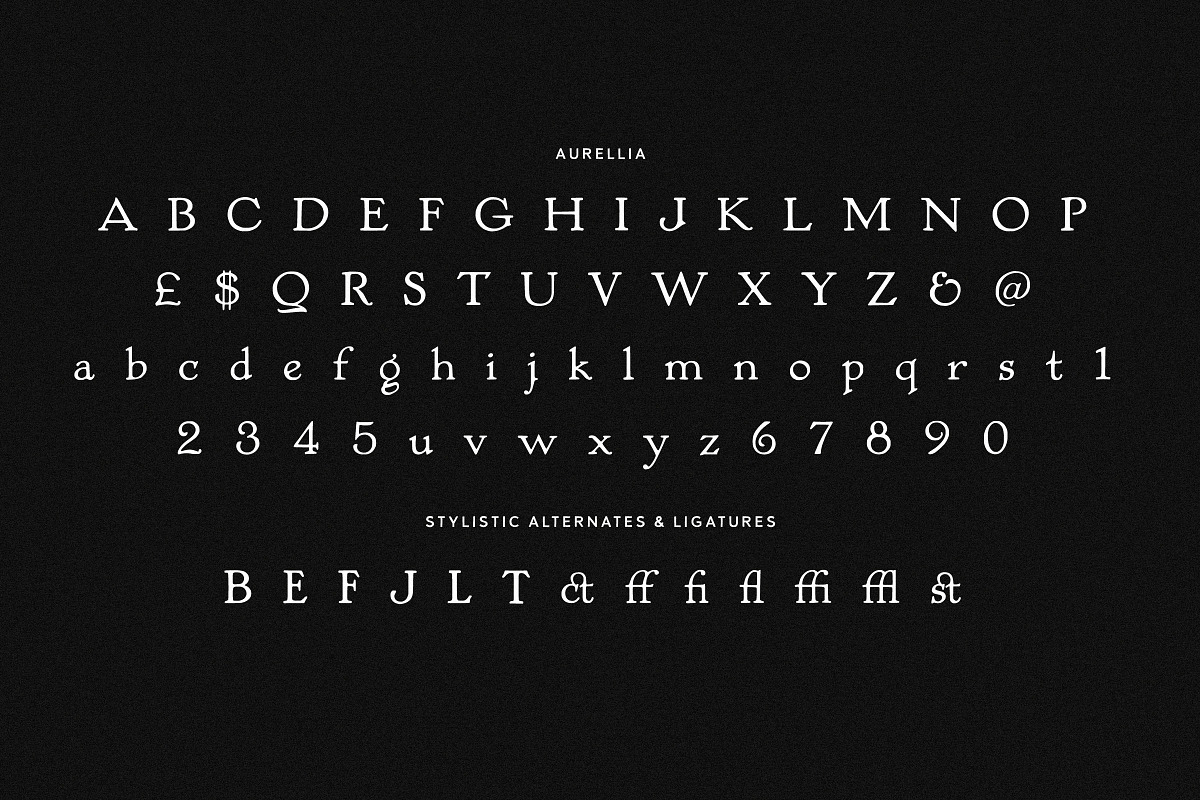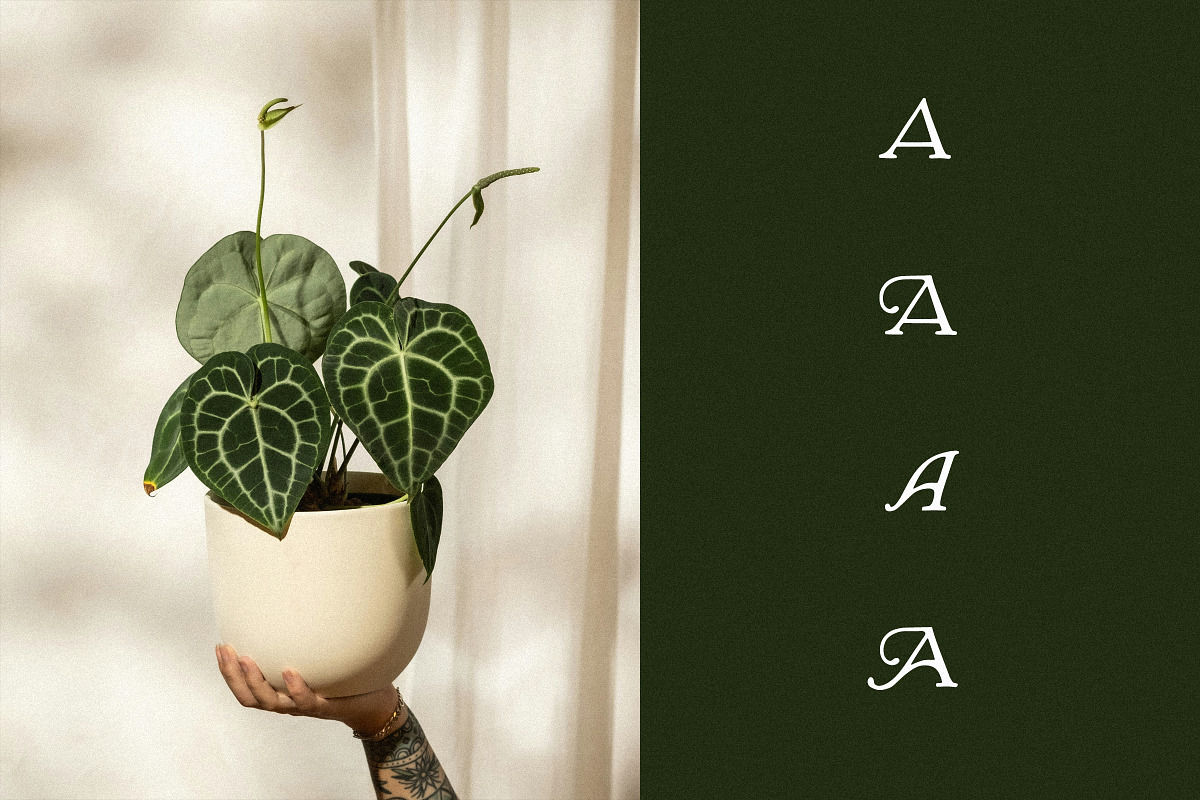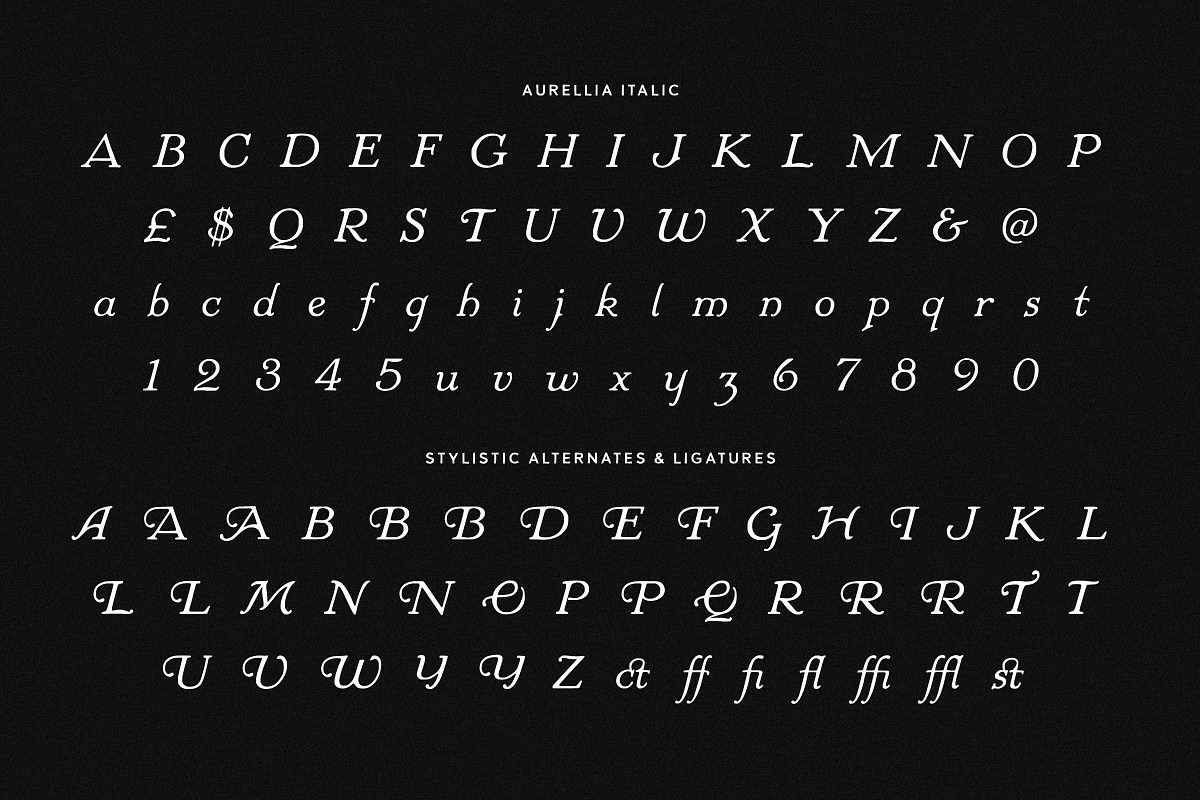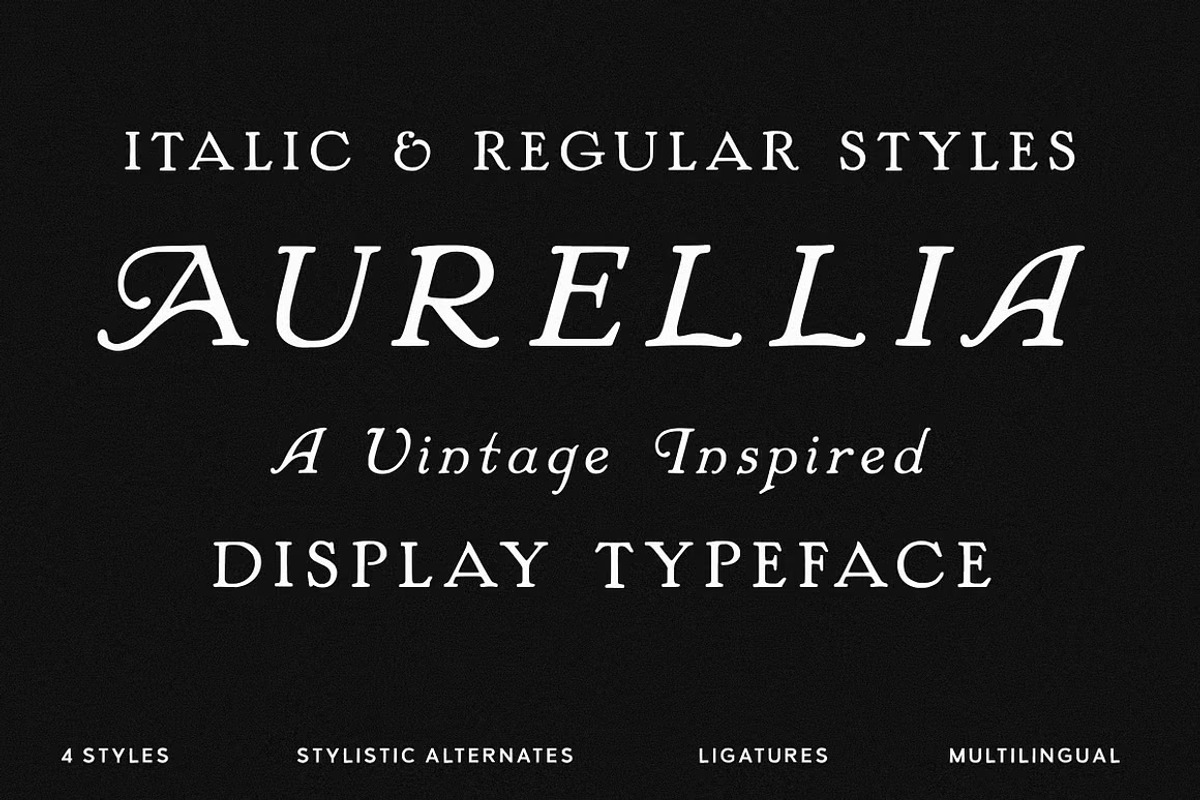
Aurellia - A Vintage Display Font
Aurellia is a vintage display typeface with just the right mix of elegance and character. Its refined serifs and subtle quirks give it an old-world feel, while its clean detailing makes it easy to use in modern design. Whether you’re working on a book cover, a brand identity, editorial layouts, or packaging, Aurellia adds that touch of timeless style without feeling overworked.
The family includes both Regular and Italic styles, each with Standard and Rounded versions. You’ll also find a range of stylistic alternates and classic ligatures, making it a versatile toolkit for projects that need sophistication with personality.
Quick Overview
- Stylistic alternates and ligatures
- Regular and Italic styles
- Rounded versions included